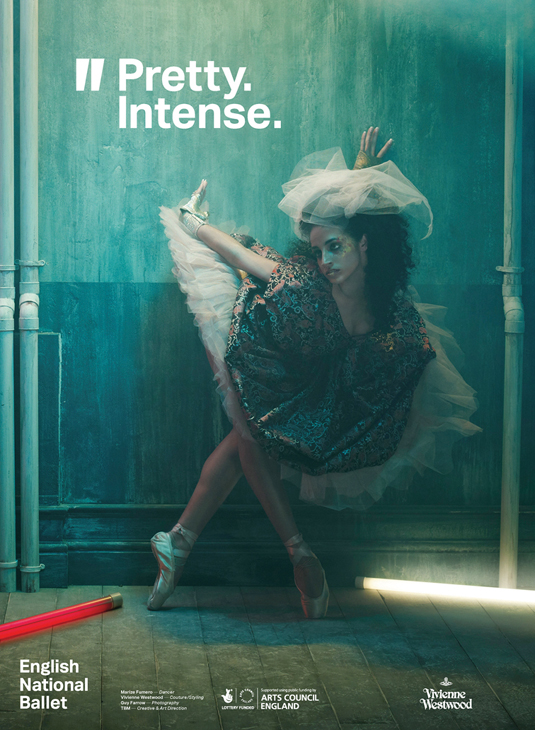
Greatest fonts countdown: 76 - Aktiv Grotesk
We're counting down the 100 greatest typefaces in existence - here's the font at number 76.
FontShop AG, the renowned type foundry, conducted a survey based on historical relevance, sales at FontShop.com, and aesthetic quality. With a few additions from the experts at Creative Bloq and Computer Arts magazine, the best fonts ever were selected for the new book, 100 Best Typefaces Ever.
But without further ado, here is the 76th best typeface…
76. Aktiv Grotesk
- Fabio Haag et al, 2009
Aktiv Grotesk is a beautiful sans-serif, designed collaboratively at renowned studio Dalton Maag. The font itself was designed to provide an alternative to Helvetica. Bruno Maag told Creative Review magazine in an interview: "We wanted to have a grotesk font positioned somewhere between Helvetica and Univers – not as icy cold as Univers but devoid of all the quirks of Helvetica.
"To have a font that is beautifully crafted, spaced well, with not a chink in a curve or anything – perfectly drawn but hopefully with a bit of personality." See it used to great effect on the English National Ballet’s posters (pictured left) and as a very successful web font at www.ballet.org.uk.